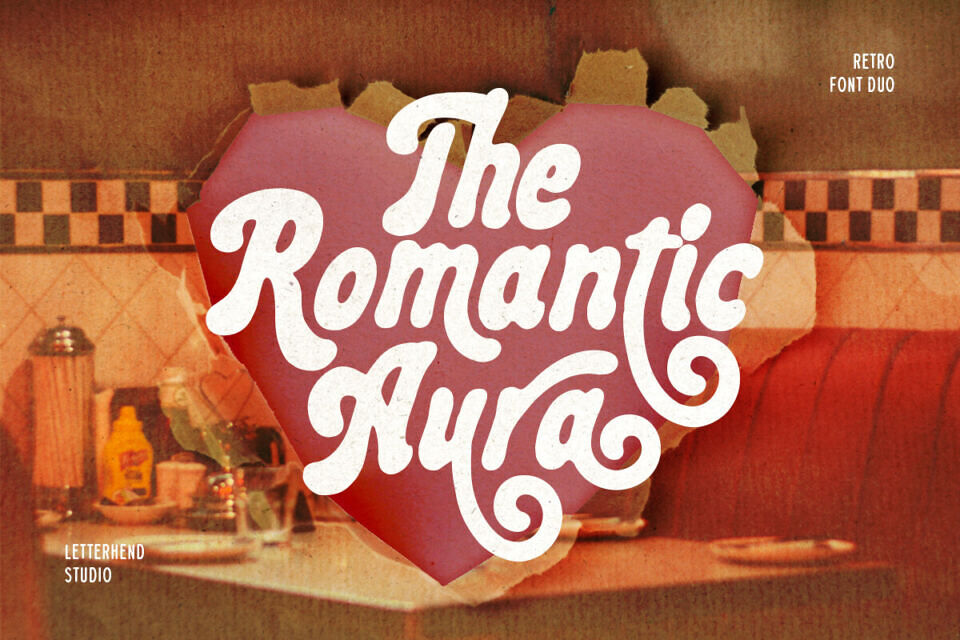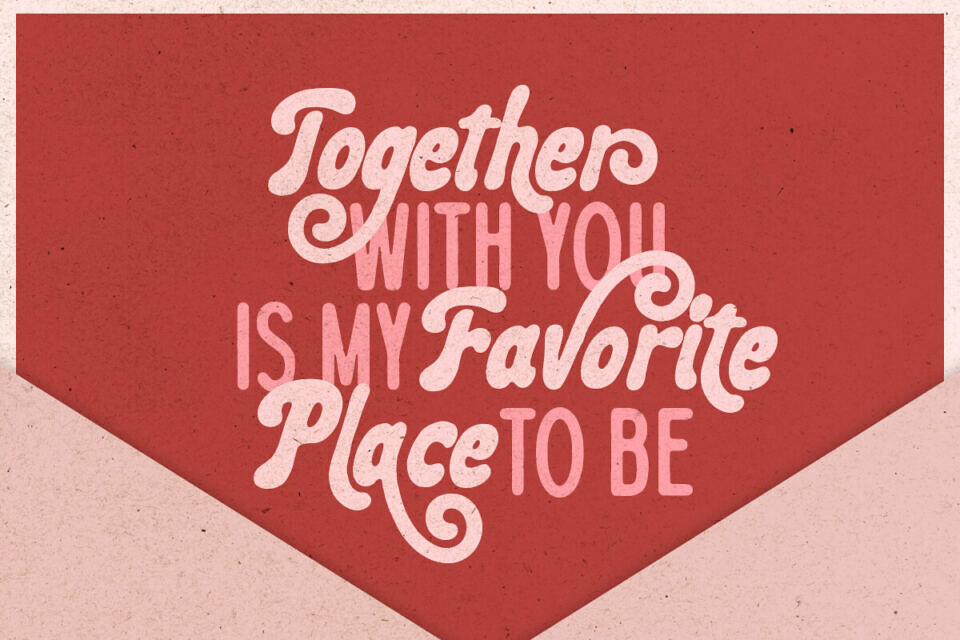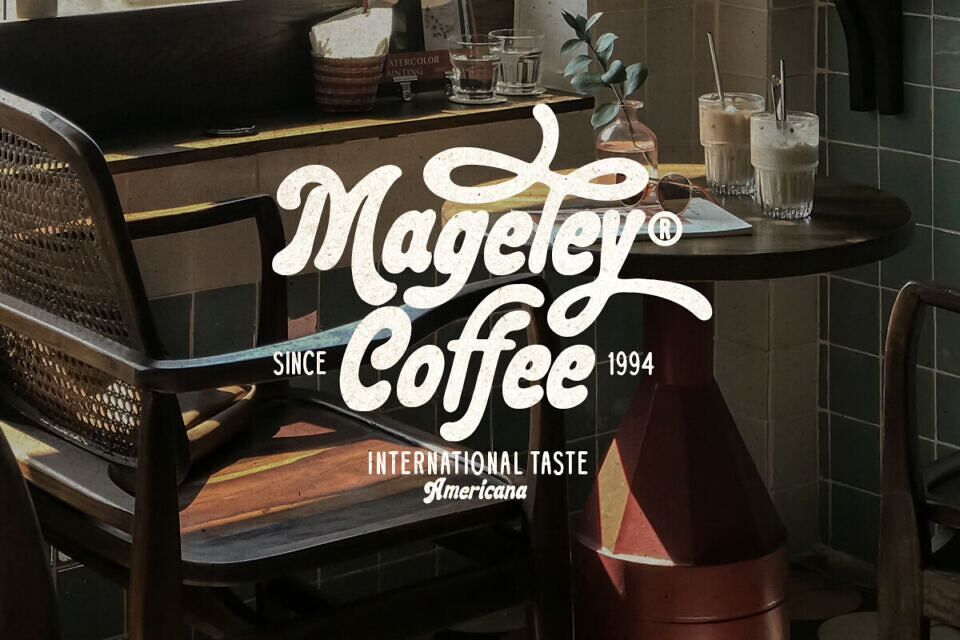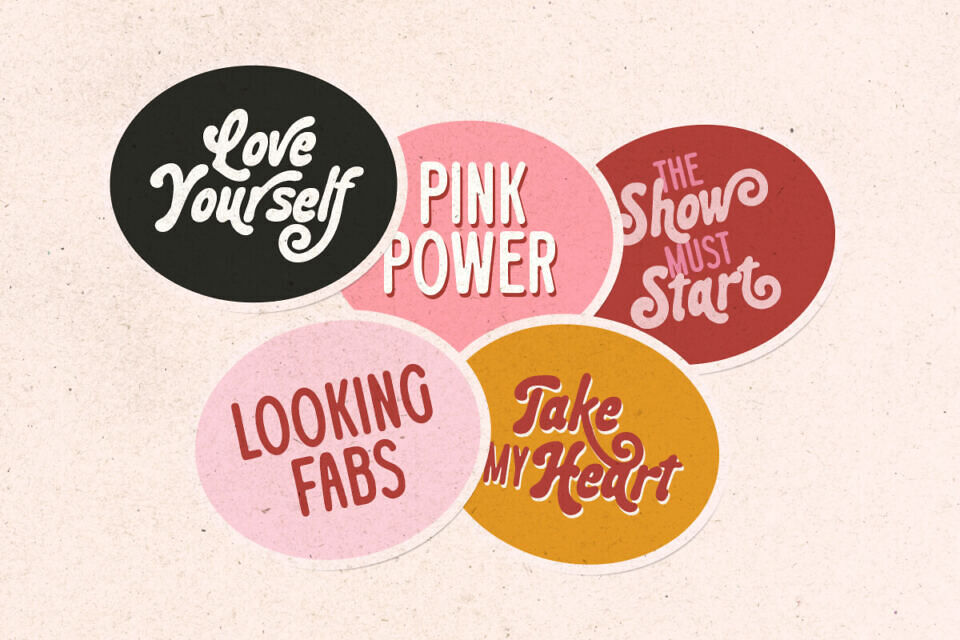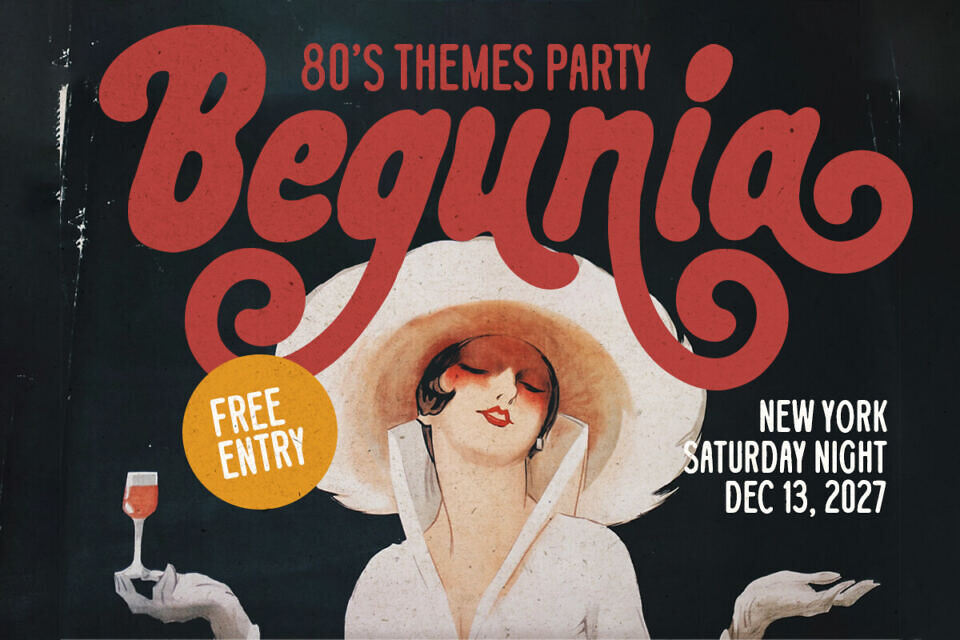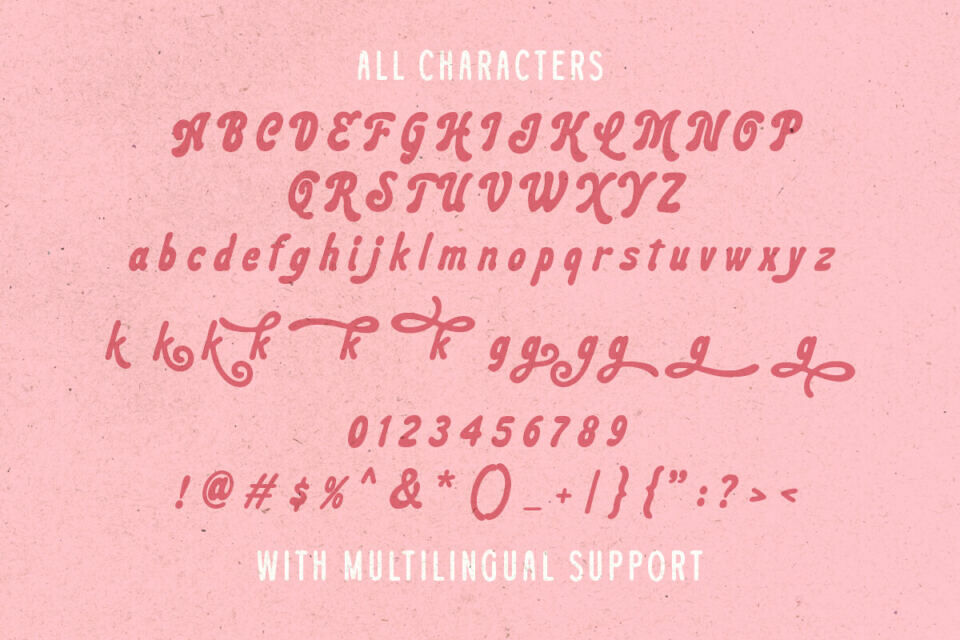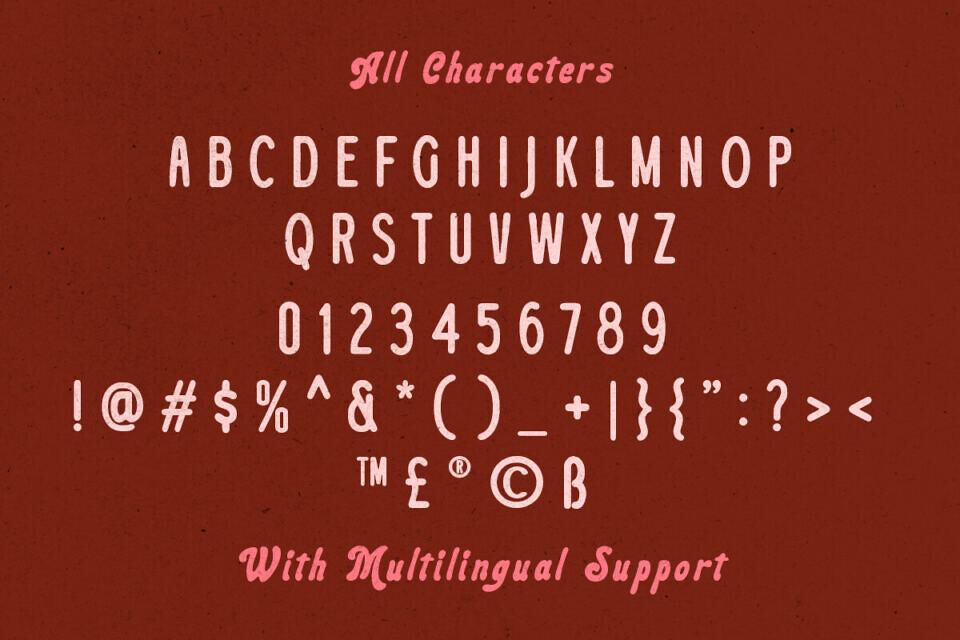
Romantic Aura Duo Font
The Romantic Aura Duo Font is a groovy, bubble-style retro font that perfectly encapsulates the vibrant energy of the 70s.
This features thick, curvaceous letterforms and playful ligatures that create a sense of movement and “cool” nostalgia. As a standout retro Romantic Aura typeface, it is the ultimate tool for creating eye-catching social media graphics, vintage apparel, and bold music posters.
Pair this Romantic Aura Duo font with grainy textures or neon color palettes to fully lean into its psychedelic roots. The font is also a fantastic choice for Valentine’s Day branding or fun, youth-oriented editorial pieces where personality is key.